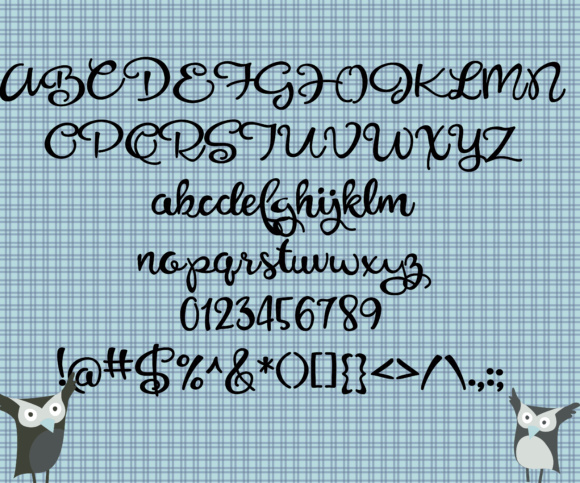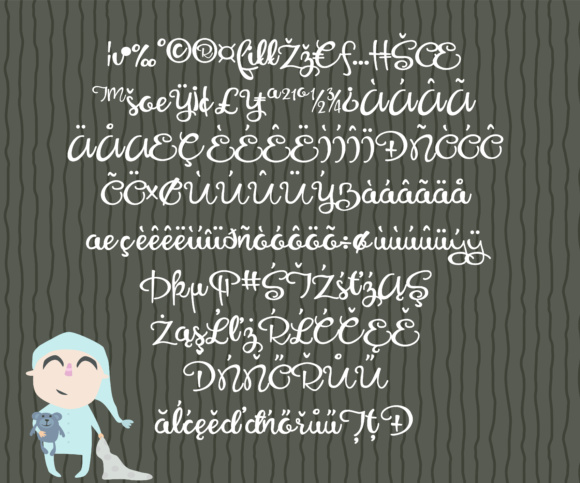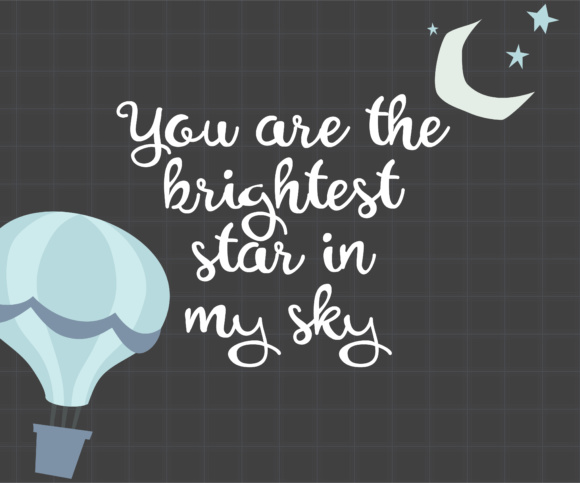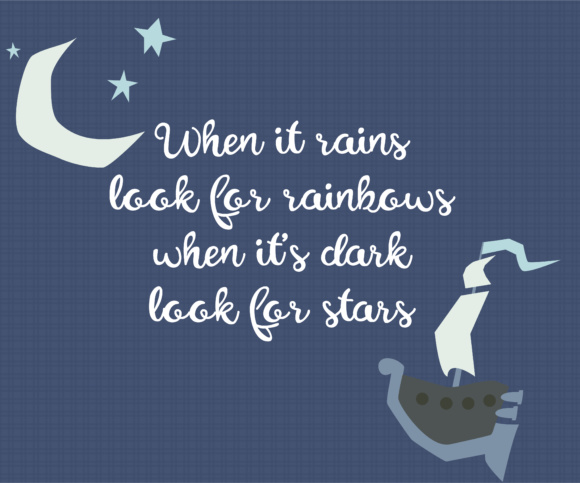
Lucky Star Font
About Lucky Star Font
Lucky Star is a delightful hand-painted cursive script that brings a playful touch with its pretty loops and abundant whimsy. Specifically crafted for children’s themed projects, this font adds a charming and lively vibe, making it an ideal choice for designs targeted at a younger audience. Lucky Star truly shines in colorful media, where its joyful and expressive nature can captivate and enchant.
The cursive script of Lucky Star gives it a flowing and organic quality, evoking a sense of warmth and friendliness. The pretty loops in the letterforms add a whimsical charm, making it perfect for conveying a childlike innocence and playfulness. This font serves as more than just a typeface; it’s a design tool that injects a dose of magic and wonder into your creative projects.
Lucky Star is particularly well-suited for children’s books, playful posters, educational materials, and any design where a cheerful and animated font is desired. Its ability to thrive in colorful media enhances its adaptability, ensuring that it seamlessly integrates into projects that rely on a vibrant and lively visual language.
Picture Lucky Star adorning the pages of a whimsical storybook, its hand-painted charm enhancing the magical atmosphere of the narrative. Envision it gracing the design elements of a children’s game, adding an extra layer of fun and excitement. Lucky Star’s whimsy becomes a key ingredient in creating engaging and visually appealing content for young audiences.
In summary, Lucky Star is a hand-painted cursive script that brings joy and whimsy to children’s themed projects. Its pretty loops and lively charm make it a perfect fit for colorful media, where it can capture the imagination of young audiences. With Lucky Star, you have a design asset that not only enhances the visual appeal of your projects but also creates an enchanting experience for children through its playful and expressive design.